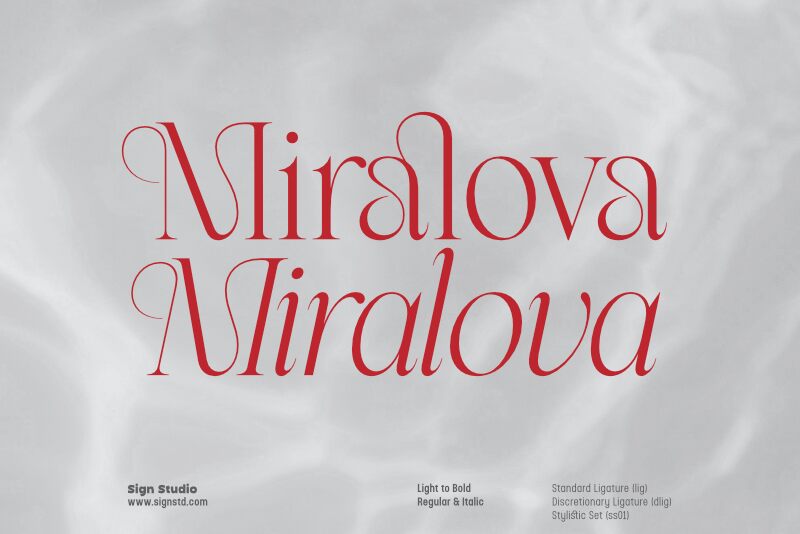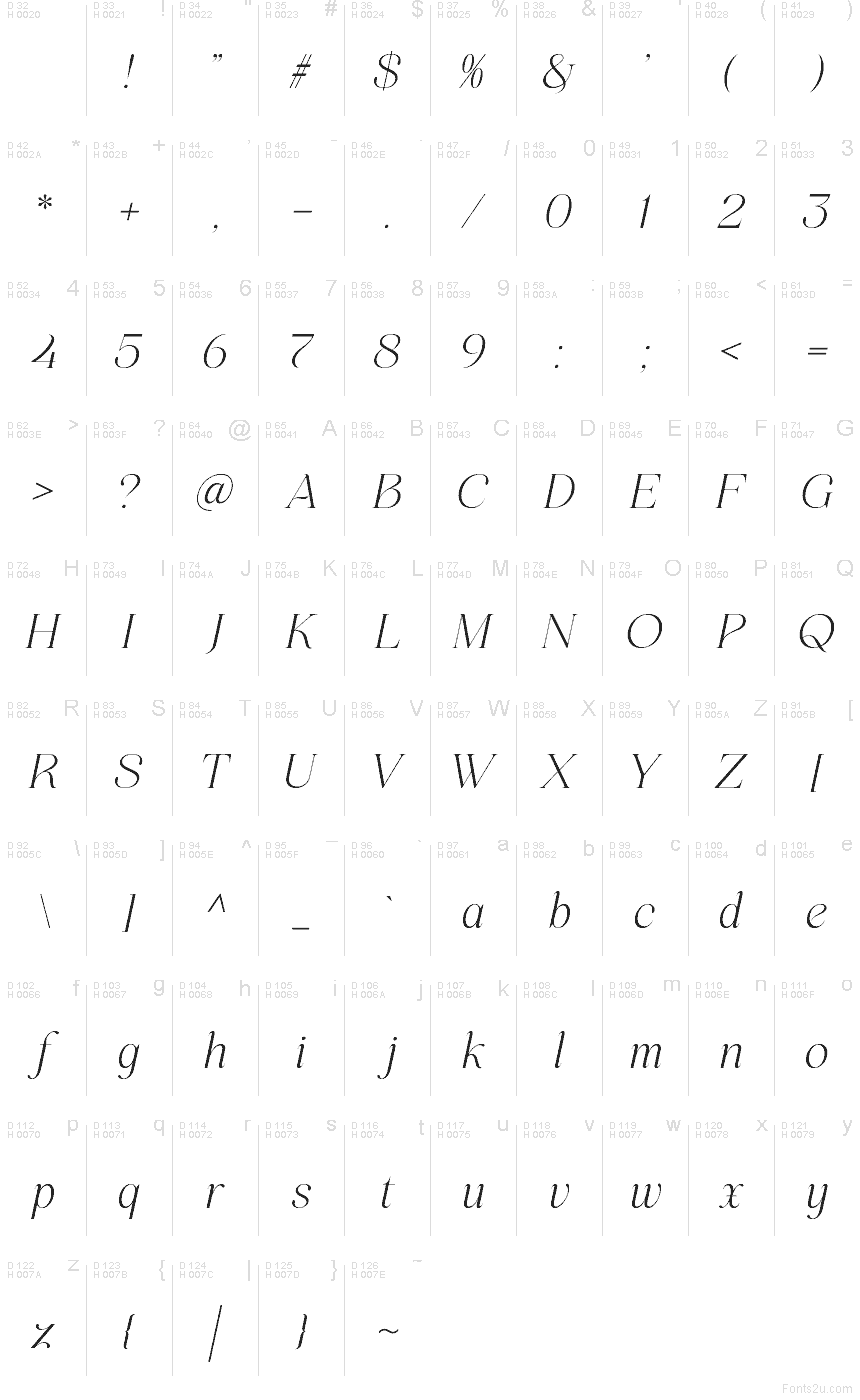
Miralova Italic
Miralova Italic font by Sugiyanto of Sign Studio comes from the Miralova family and is a free serif font with runway elegance. Its long, slanted rhythm and razor-thin hairlines give words a silky, inky glide, while the generous curves keep it romantic rather than fussy. It reads like a whispered signature—polished, airy, and confidently modern.
Using Miralova Italic works beautifully for fashion branding, perfume packaging, editorial pull quotes, book covers, wedding stationery, boutique logos, and premium social graphics. Keep Miralova Italic a touch larger with extra breathing room so the fine strokes stay crisp, and pair it with a calm sans (think neutral grotesk) for body text to let the italic shine. This free font brings instant sophistication without shouting.